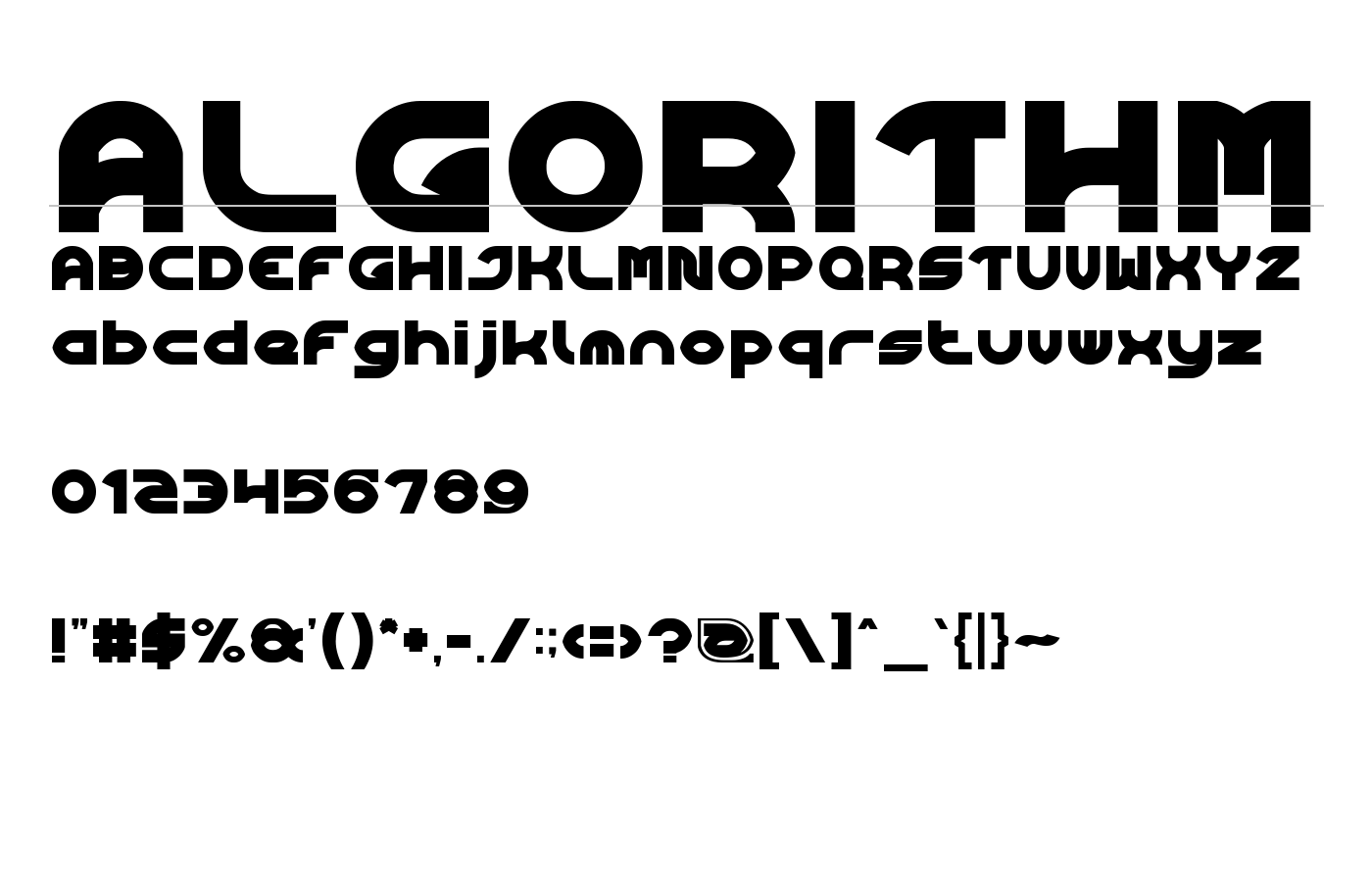
Algorithm is a bold, geometric sans serif font with a futuristic and tech-inspired style. Its heavy weight and clean, angular shapes with some curved elements give it a modern, impactful presence perfect for headlines, logos, and branding in technology or creative industries. The font's unique letterforms combine a strong and playful character, making it well-suited for projects seeking a distinctive, forward-thinking look.
ALGORITHM Font
About ALGORITHM Font